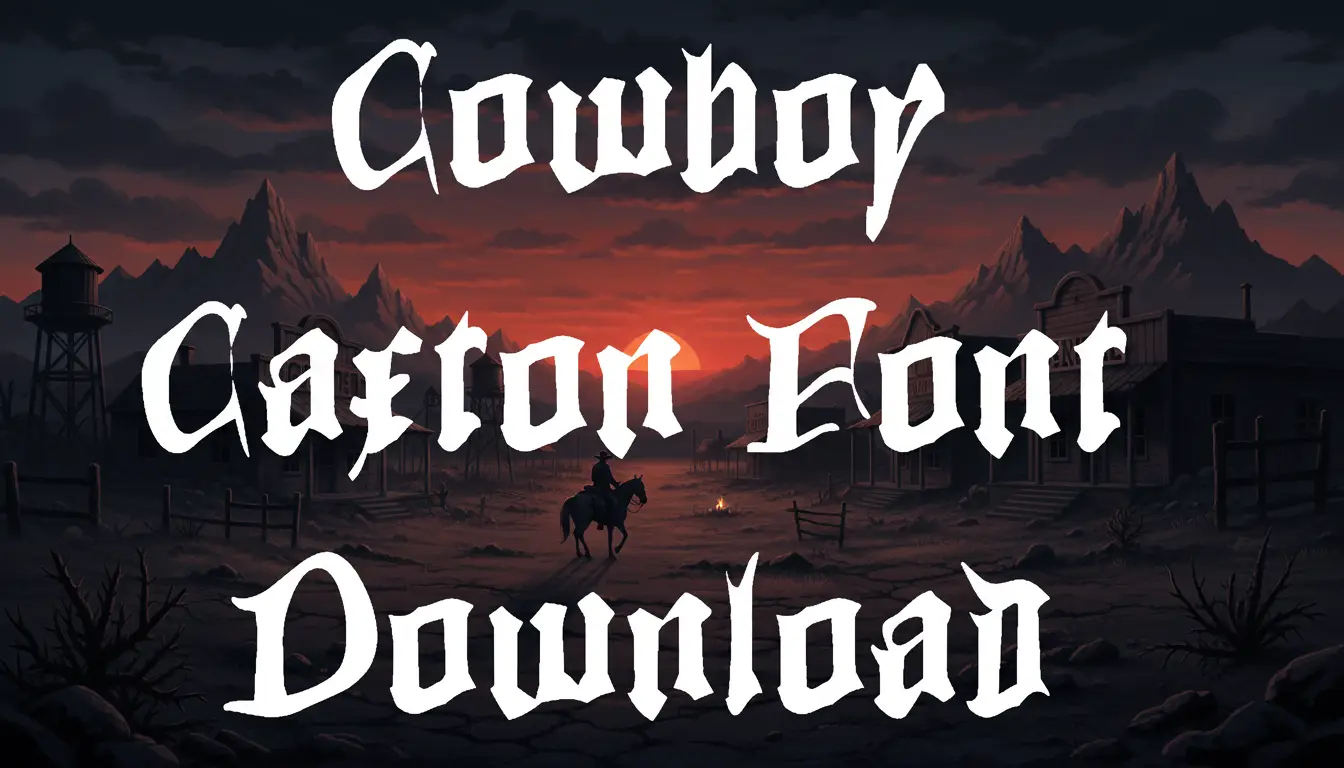
Cowboy Caxton Font
Cowboy Caxton
Cowboy Caxton is a gothic font. Sharp, dark and dramatic, it follows the blackletter tradition of old European manuscripts. It's a free download, and you can try it with your own text in the preview above first.
You get every letter from A to Z in both cases and all the numbers from 0 to 9, which means Cowboy Caxton can handle full sentences, dates and prices. Everyday marks like !, ?, @ and # are there too. Thanks to its accented letters, it also works for German, not just English.
Designers usually reach for fonts like Cowboy Caxton when they're making tattoos, metal band logos and dark fantasy titles. Blackletter is very hard to read in all caps, so type in normal upper and lowercase.